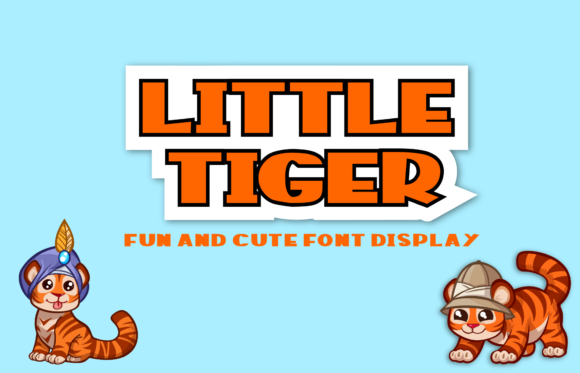
**Unleash Your Creativity with Little Tiger Font: The Perfect Touch for Captivating Designs**
Immerse yourself in the world of Little Tiger Font, a captivating display font that ignites your imagination. This extraordinary font, crafted with meticulous care by Goodrichees, is a masterpiece designed to elevate your designs to new heights.
Indulge in the bold and enchanting characters of Little Tiger, meticulously crafted with a thick, trendy lettering style. Its playful and whimsical nature makes it the perfect choice for bringing a touch of joy and excitement to any project. Whether you're designing playful animations, enchanting children's books, or crafting eye-catching designs, Little Tiger empowers you to make a statement.
With Little Tiger Font, you'll effortlessly create designs that resonate with your audience. Its versatility extends from captivating logos and branding elements to engaging social media graphics and website designs. Let your creativity soar as you explore the boundless possibilities that Little Tiger offers.
Experience the transformative power of Little Tiger Font today and unlock a world of design possibilities. Let its charming characters ignite your imagination and inspire creations that leave a lasting impression.